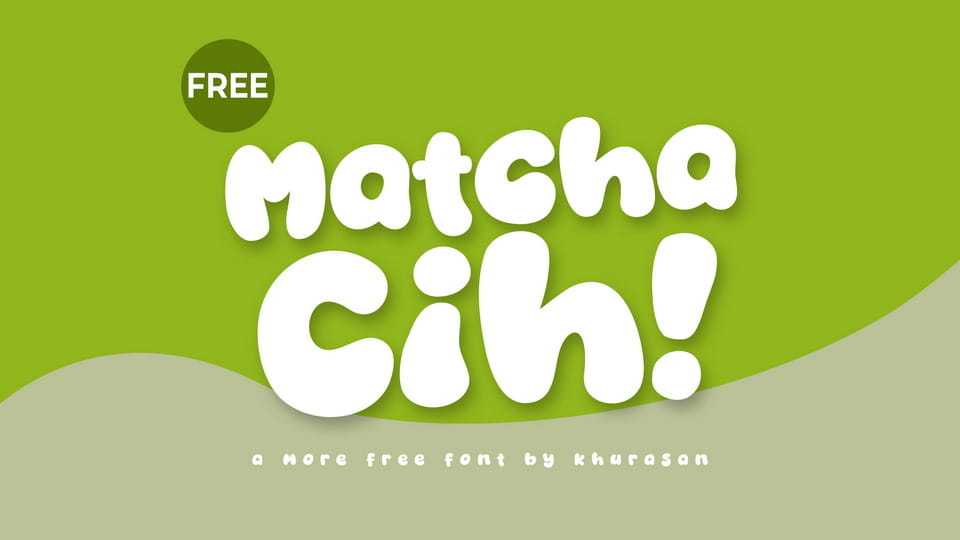
Download Matcha Cih font, a bubbly and cheerful display typeface featuring soft, rounded letterforms and a smooth, friendly style. Its playful shapes create a light and joyful atmosphere, making it perfect for fun and colorful designs.